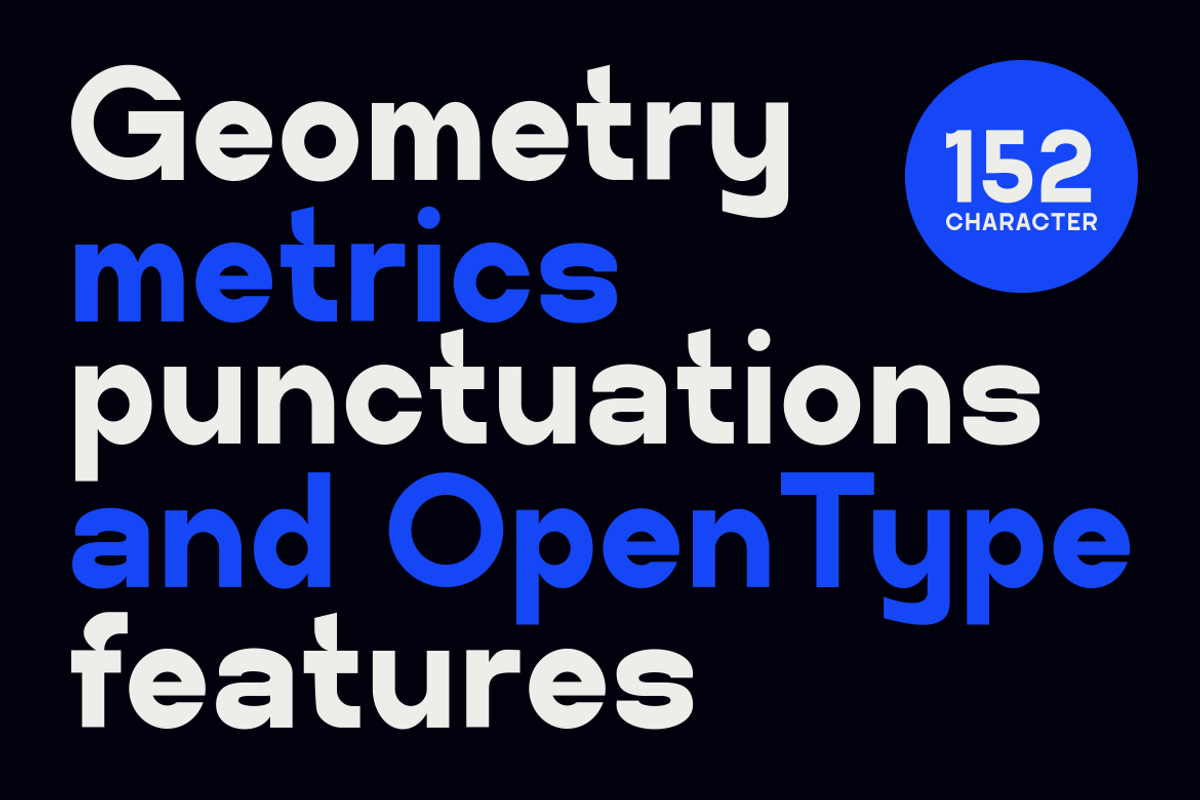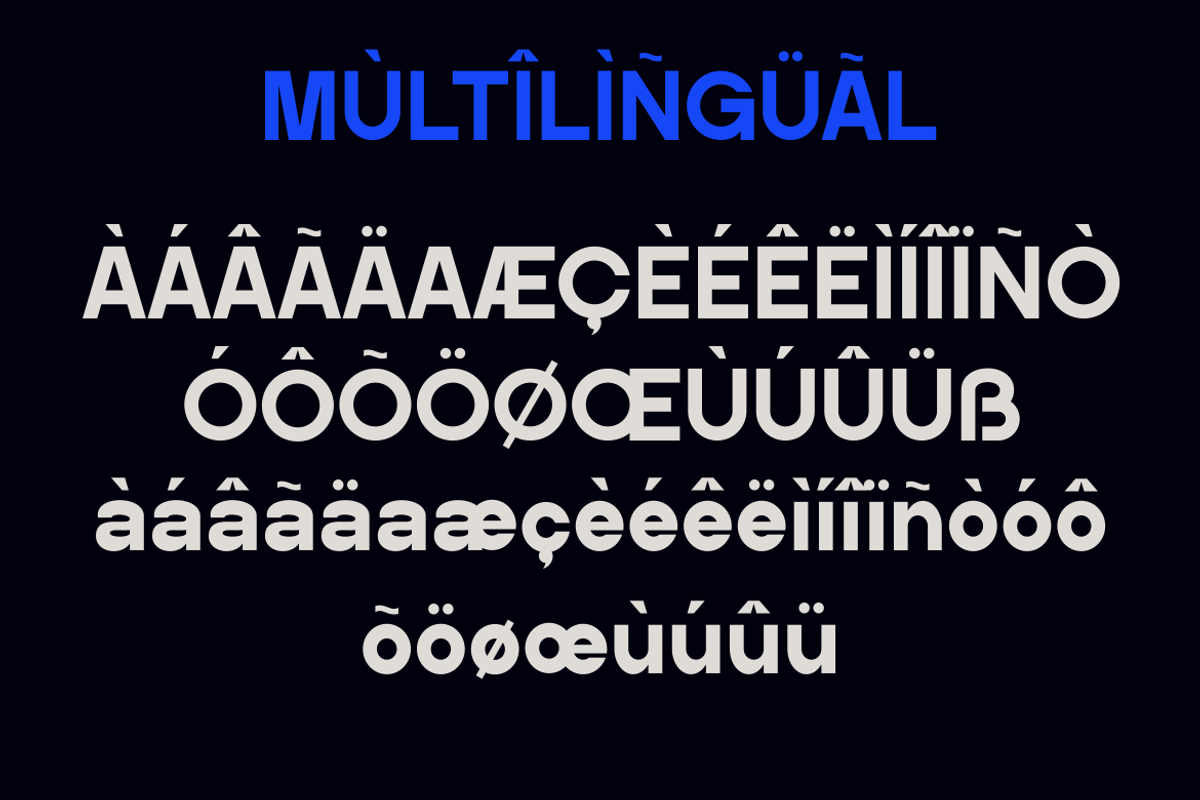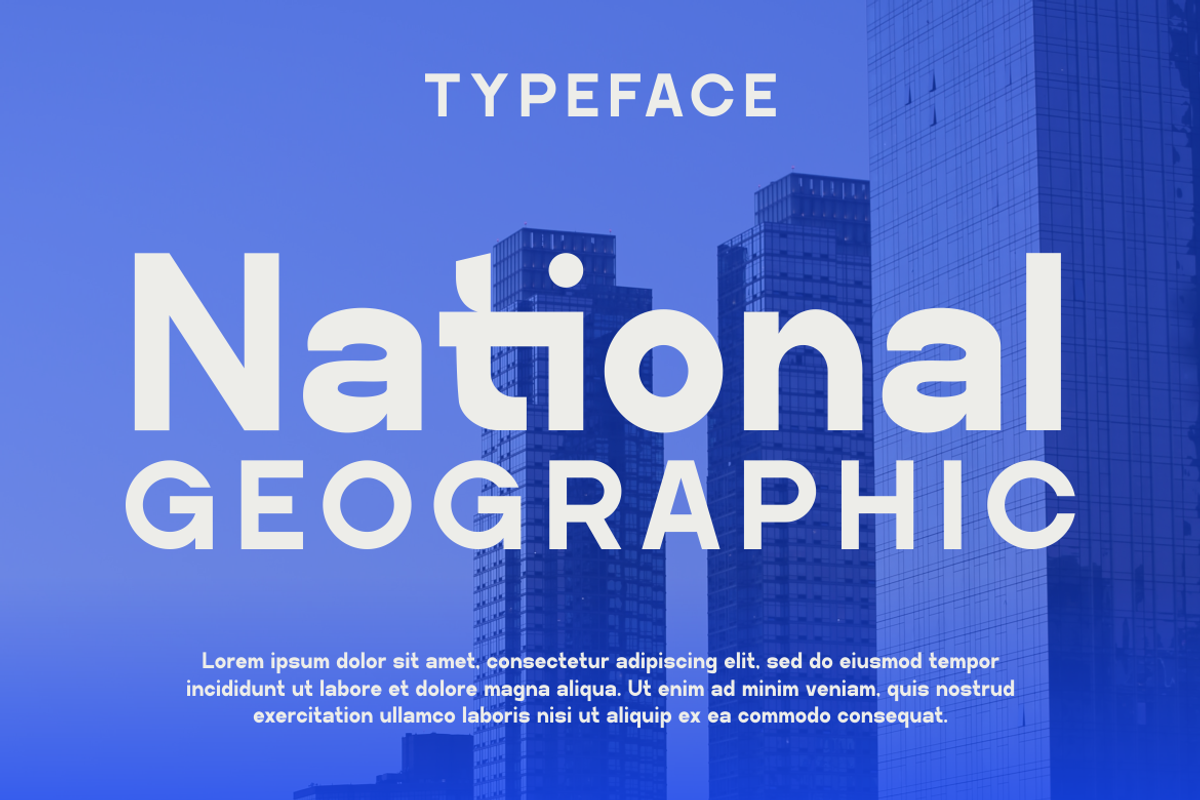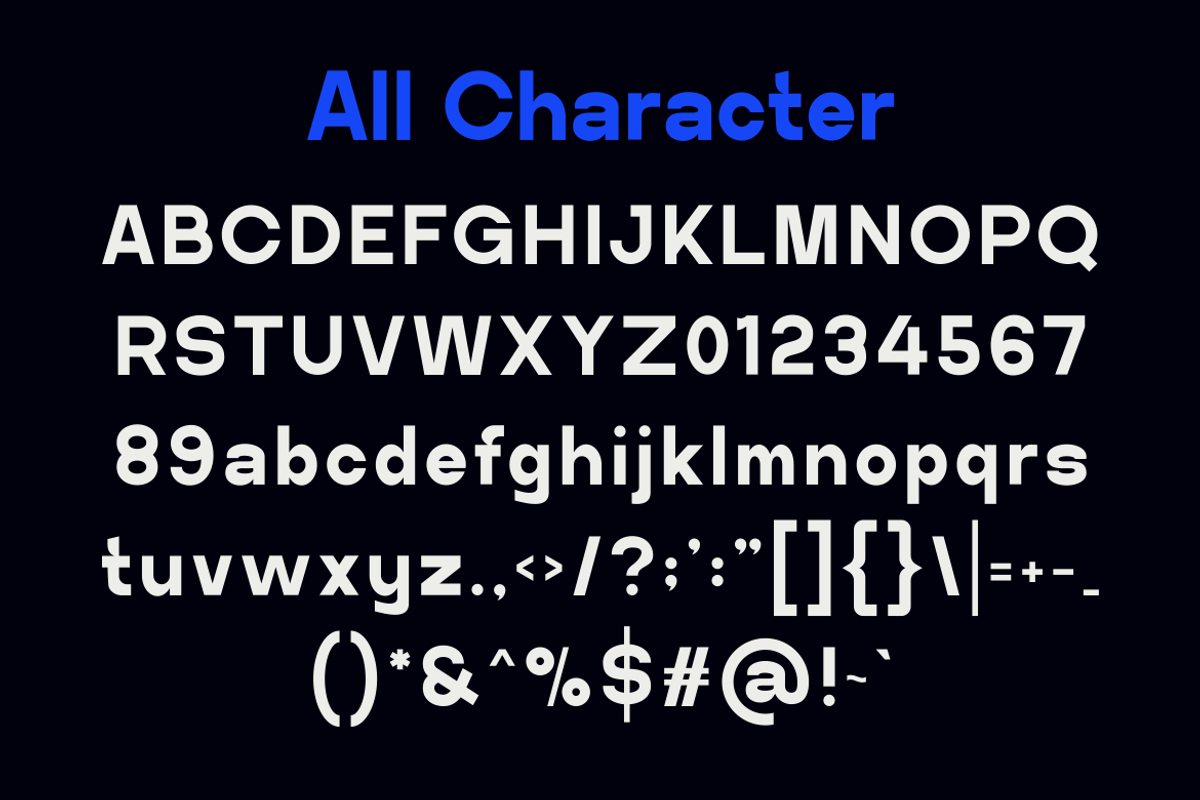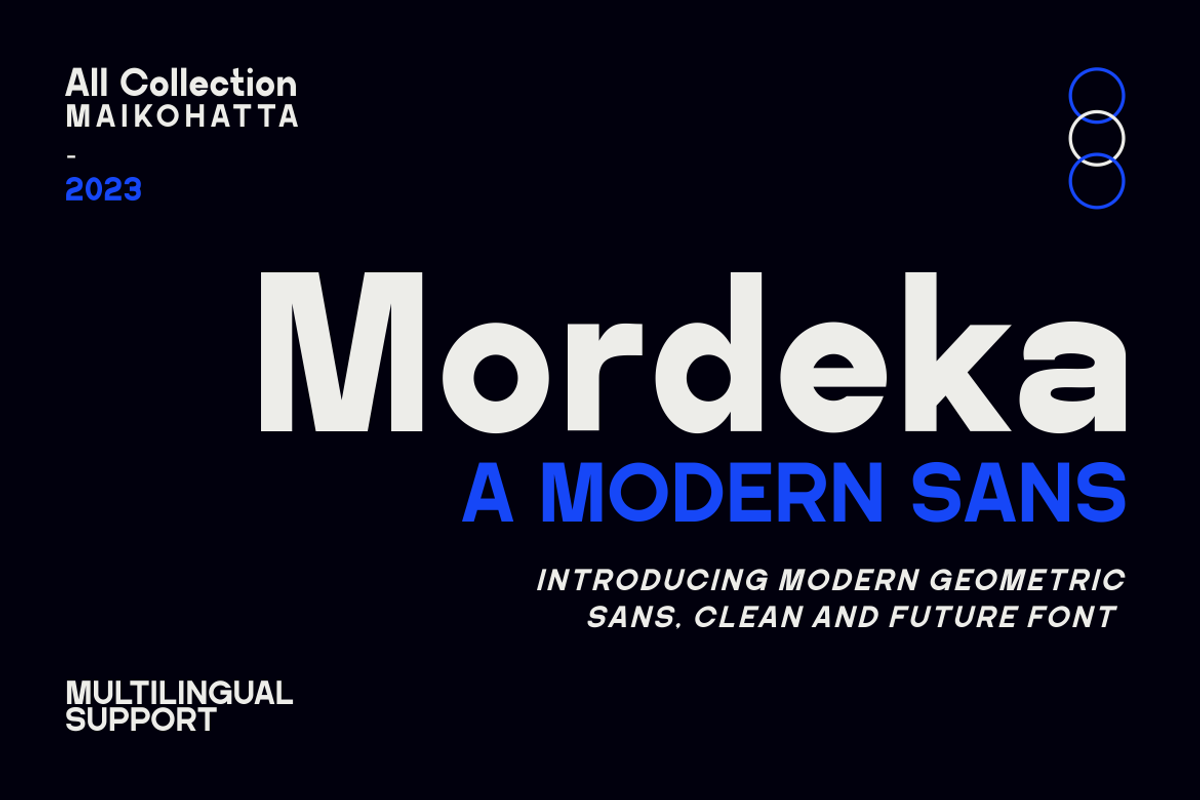
Mordeka - Modern Sans Typeface
Introducing our new product Mordeka Modern Sans Typeface
Mordeka - Modern Sans Typeface is a bold and authentic display font. The font is suitable for any branding project like logo, template design, esport, and many more. outstanding in a wide range